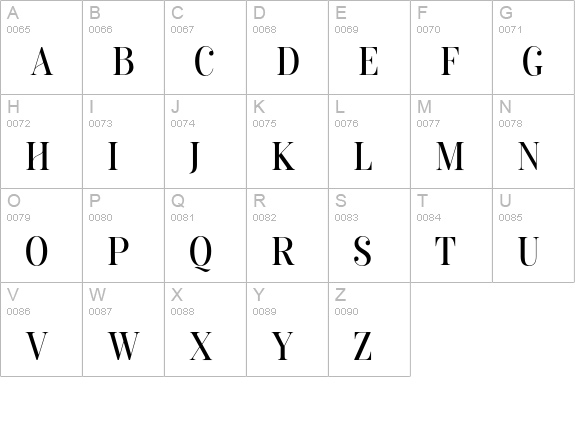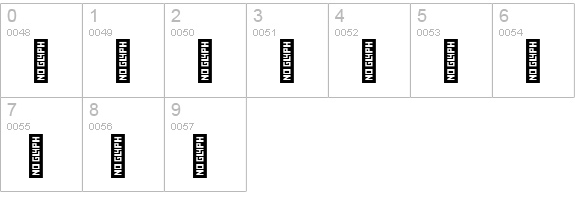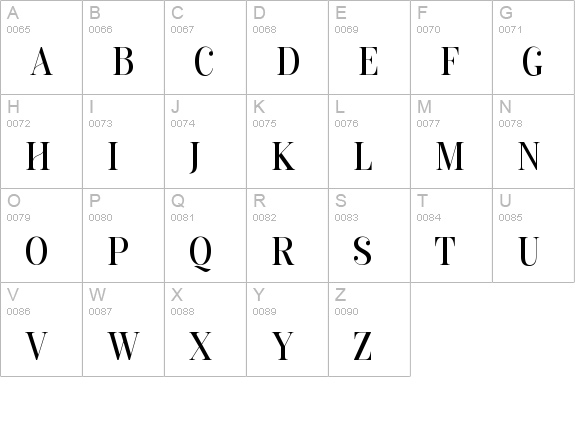
amaris Font Details
amaris is a demo font in the General > Serif category, designed by craftsupplyco. It has been downloaded 48 times and is available for Windows, Mac and Linux.
Introducing Amaris Font, a stunning and versatile typeface that exudes elegance and sophistication. With its sleek lines and modern appeal, Amaris Font is perfect for a wide range of design projects, from branding to packaging to editorial layouts. This font strikes the perfect balance between classic and contemporary, making it a timeless choice for any creative endeavor.